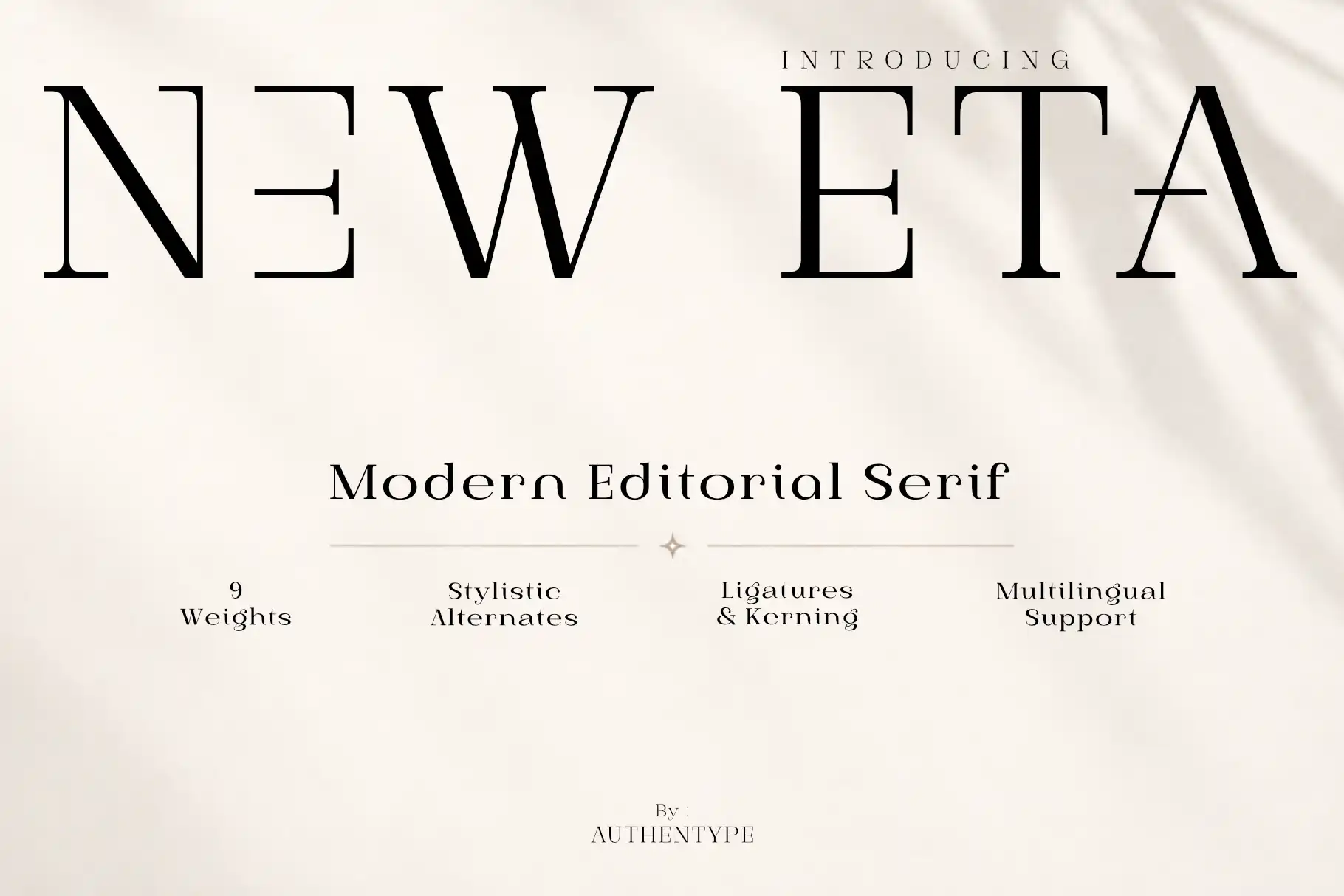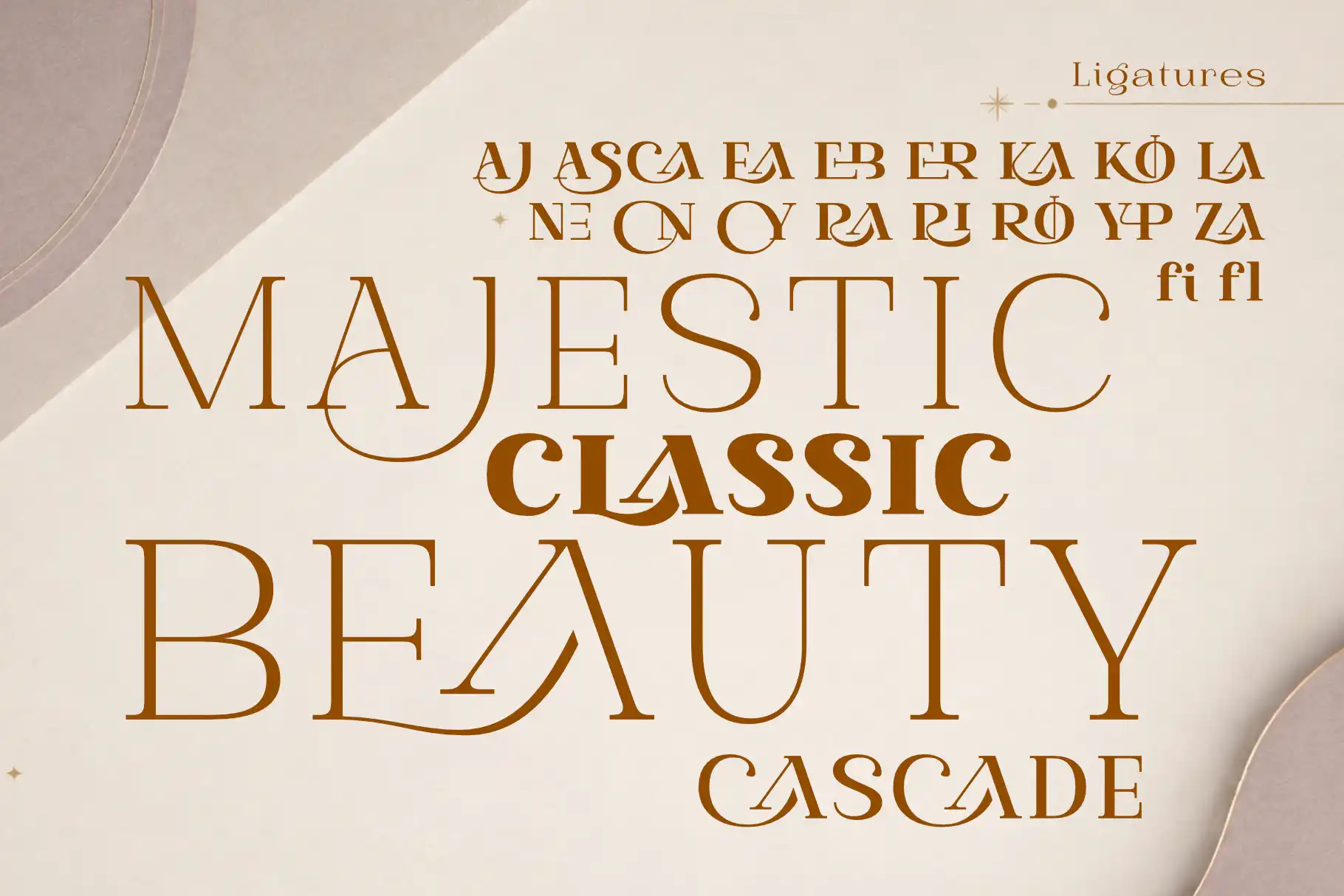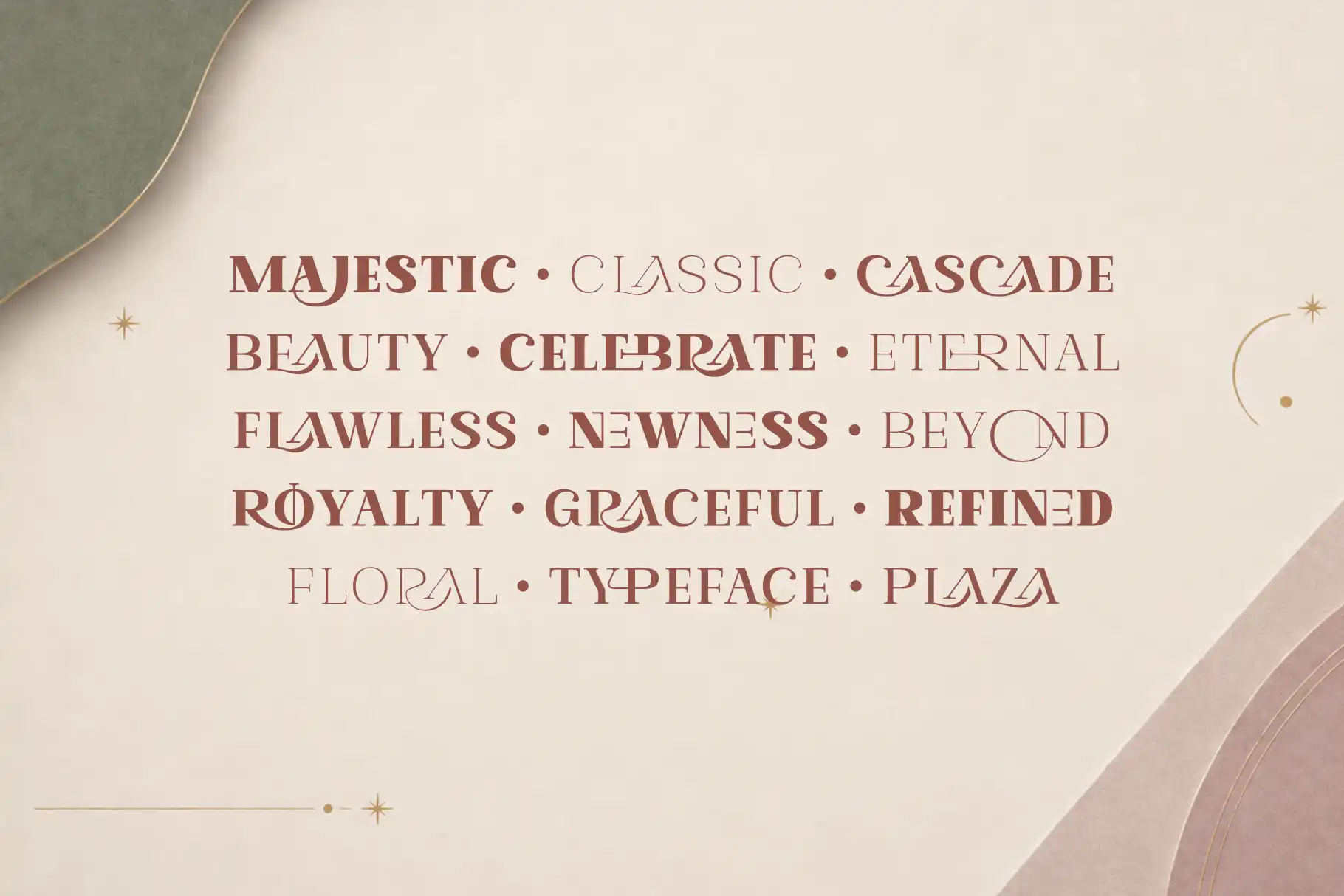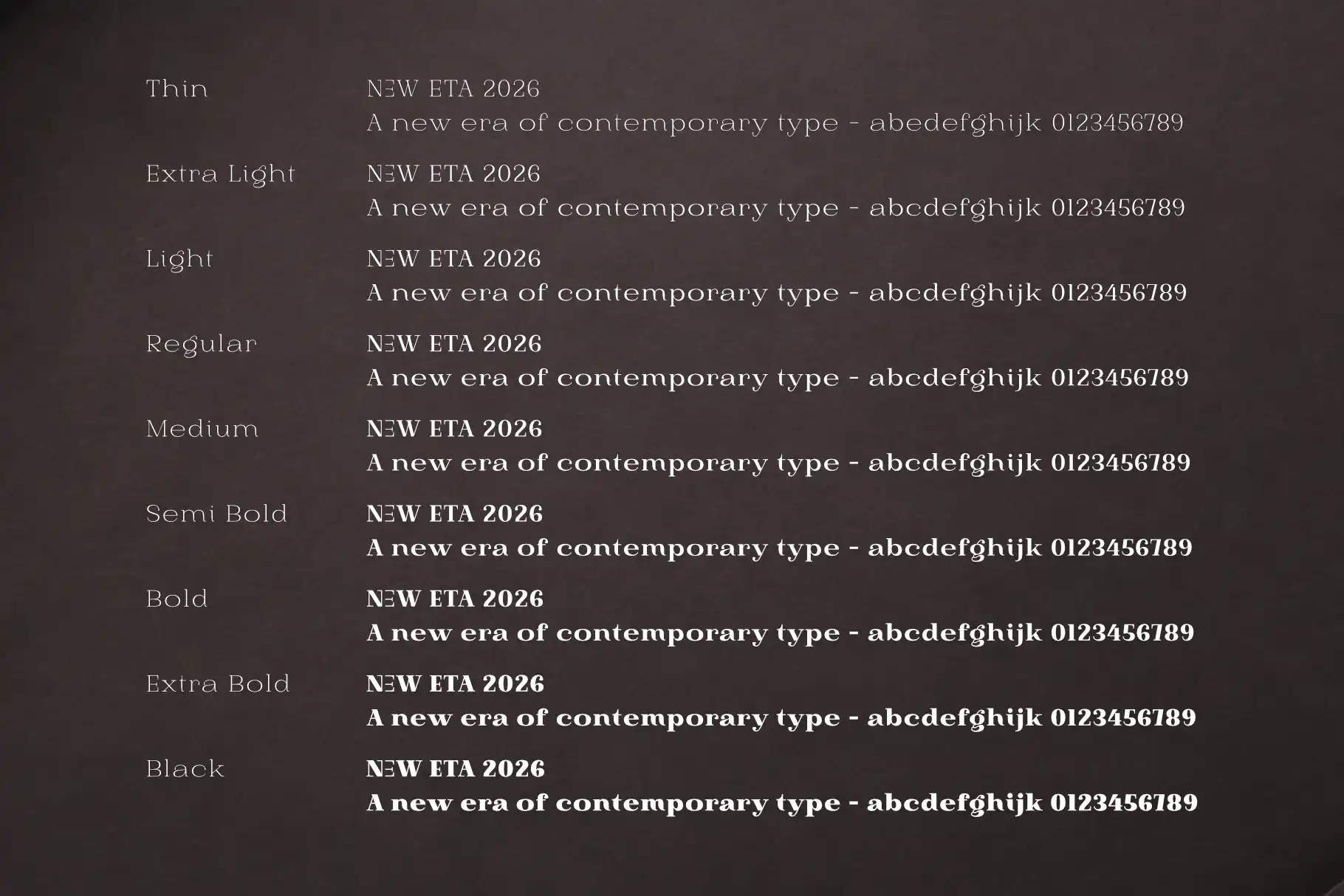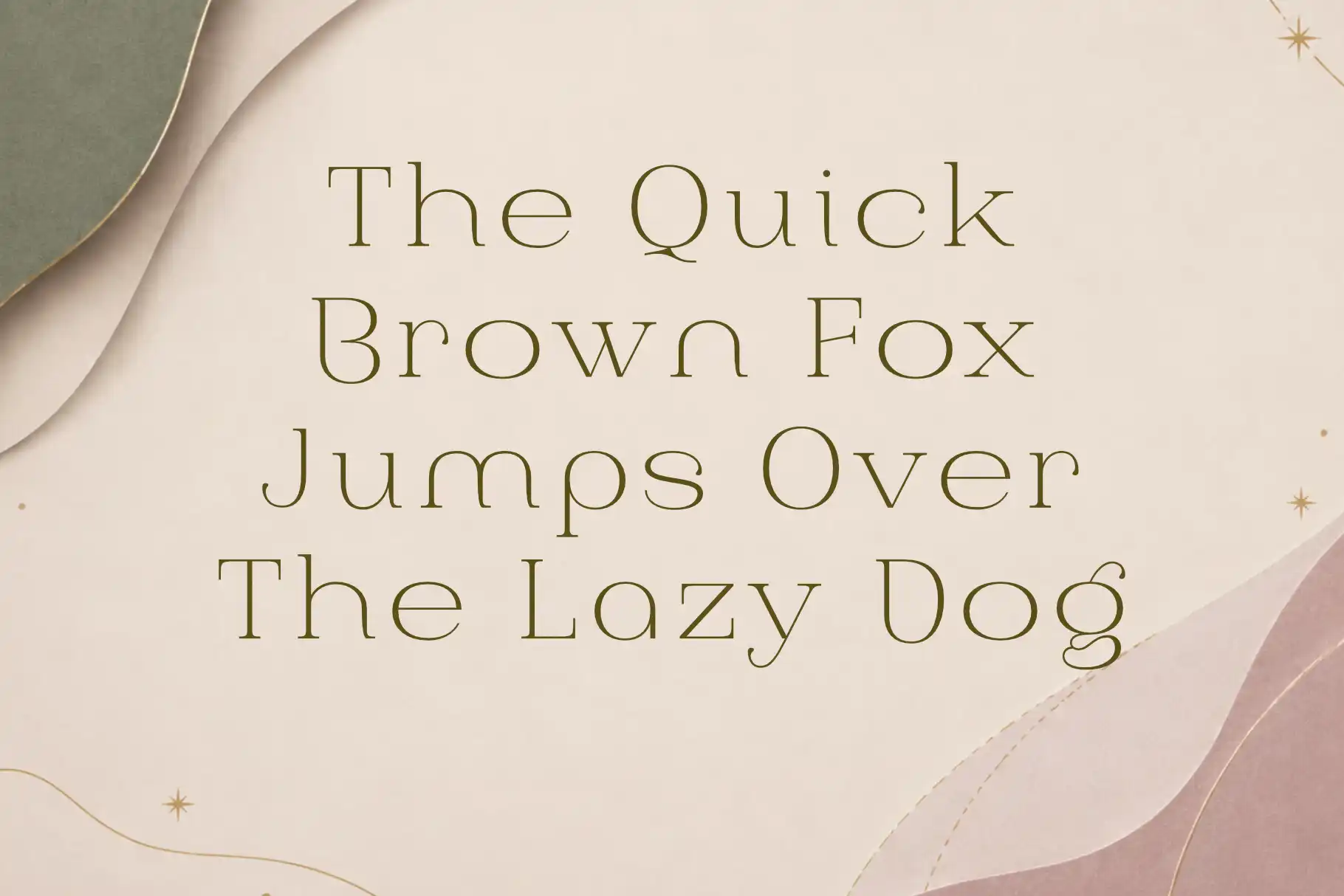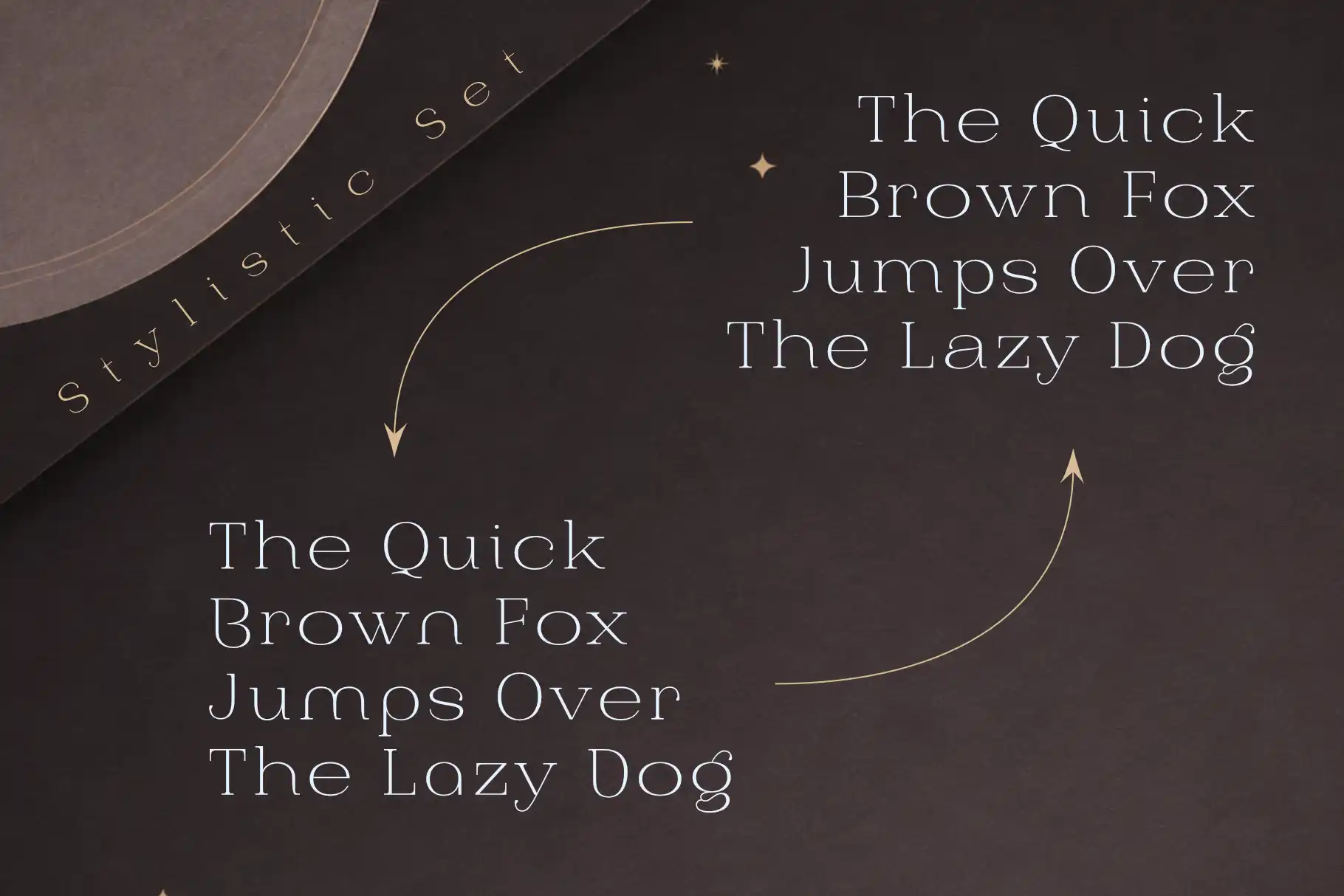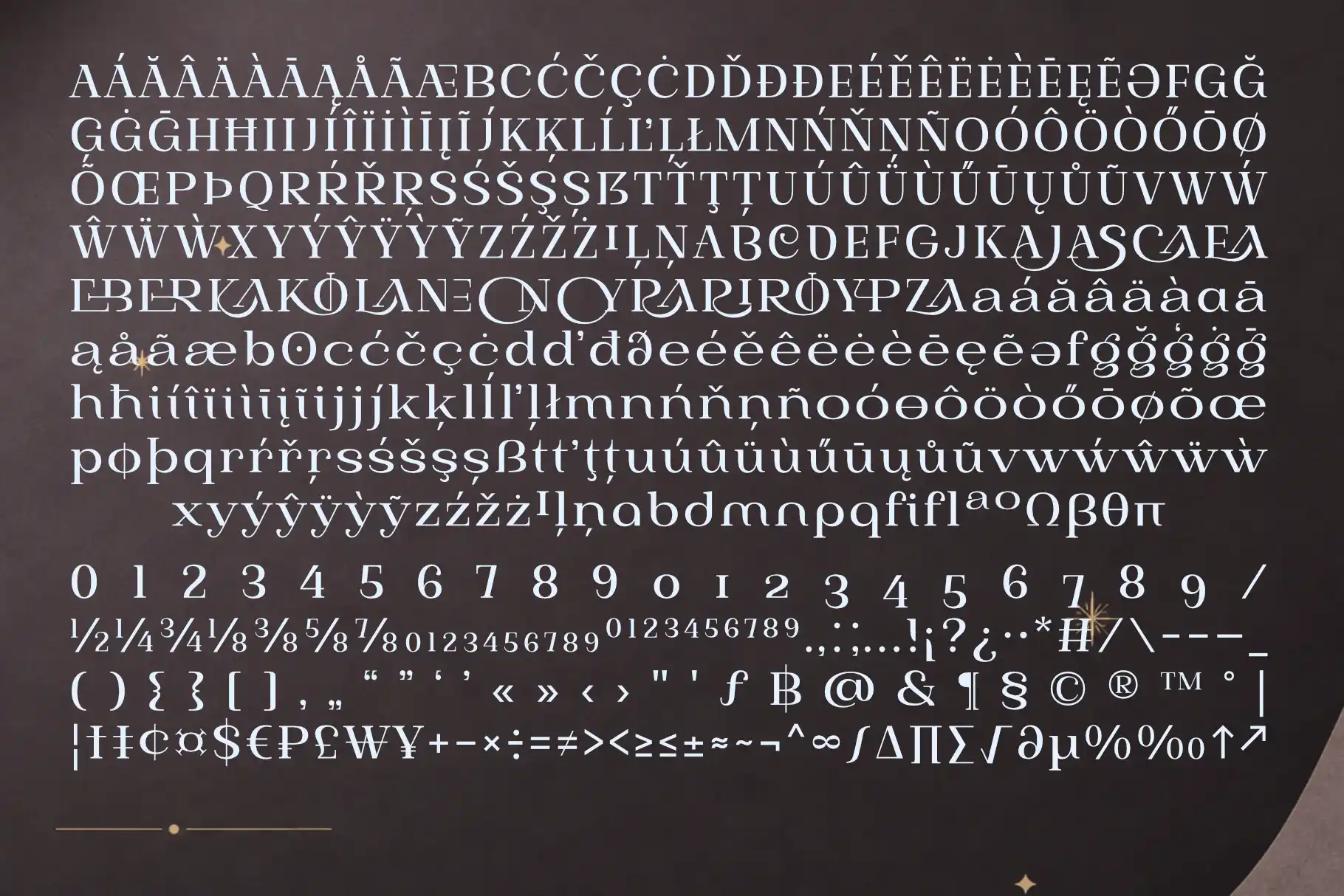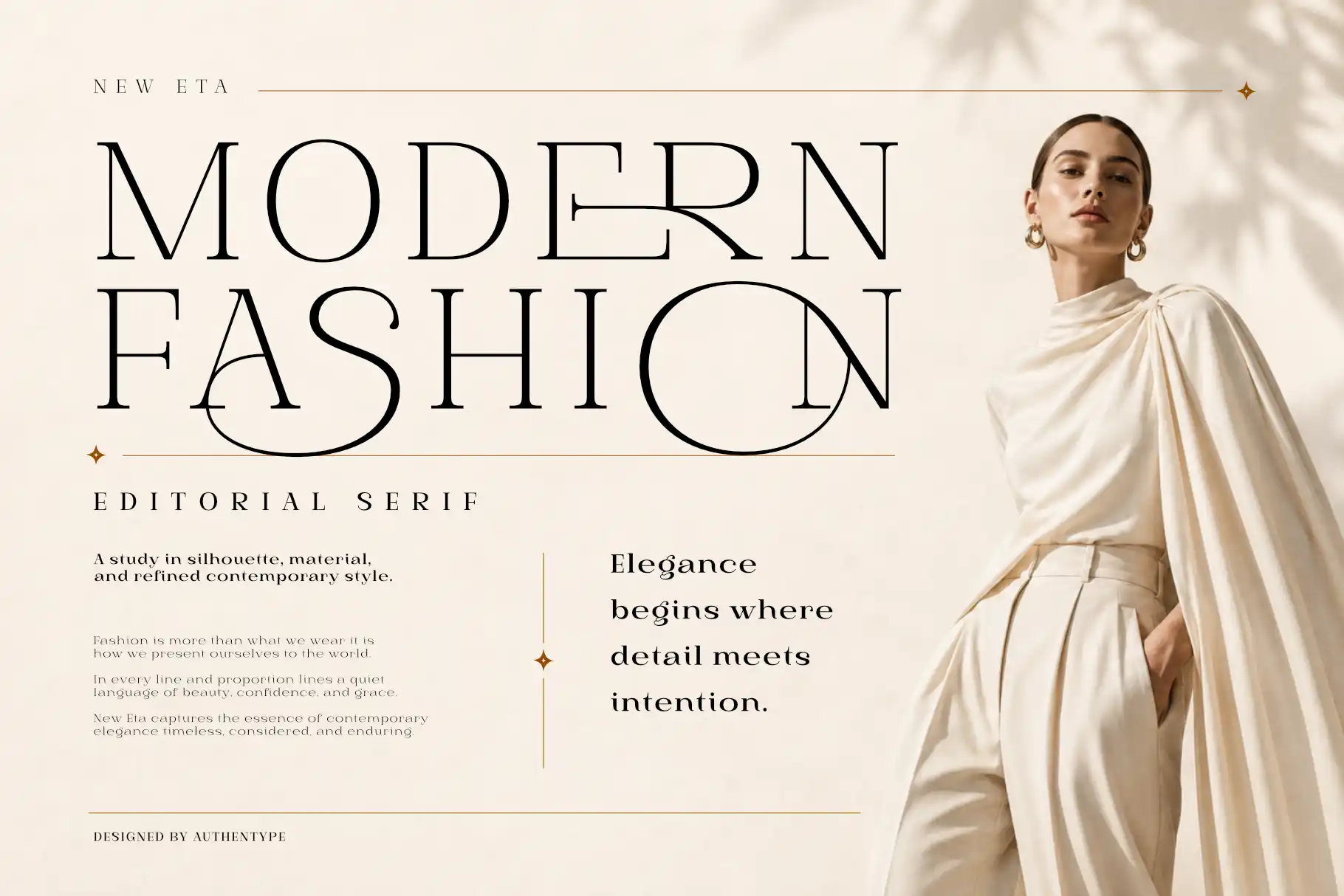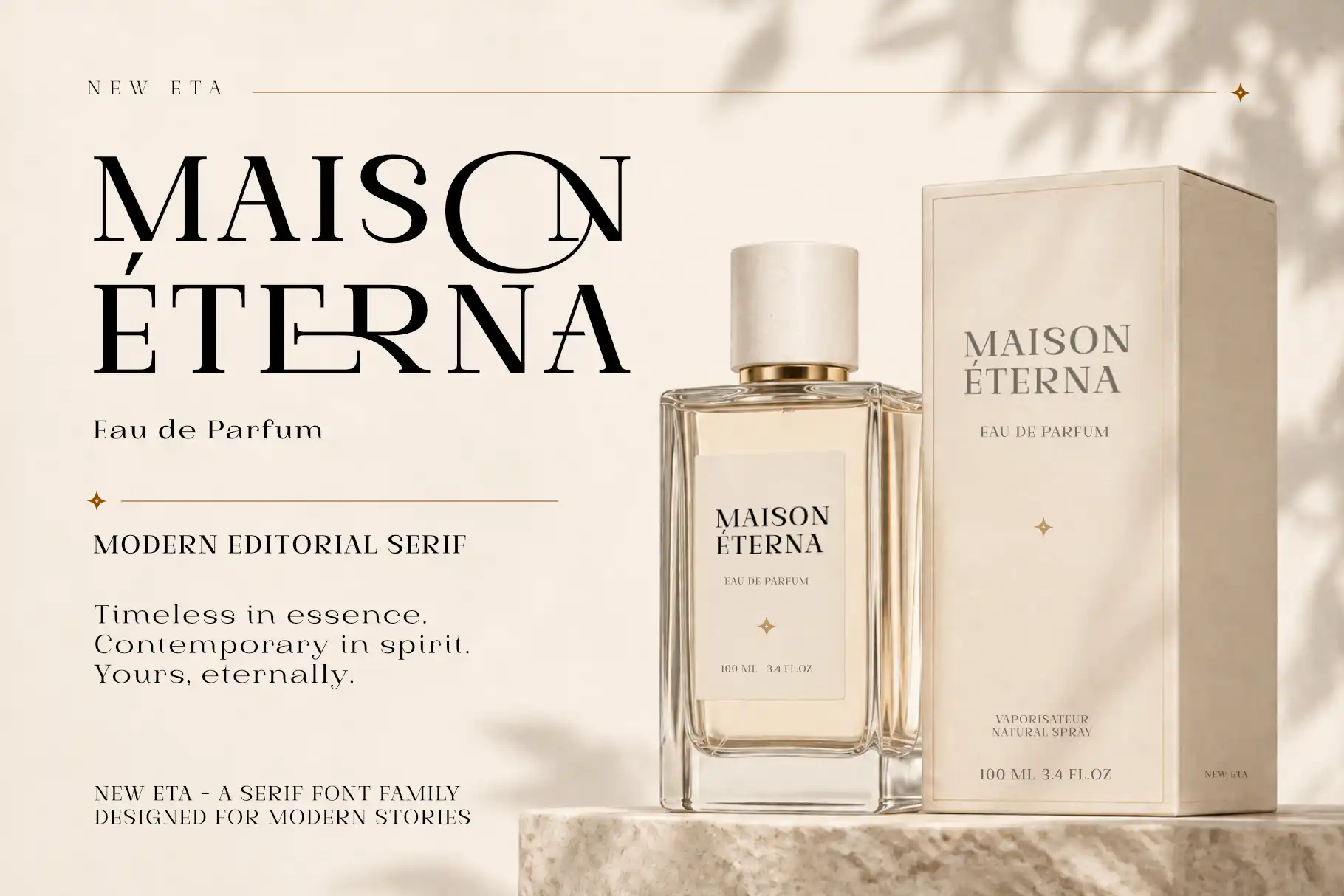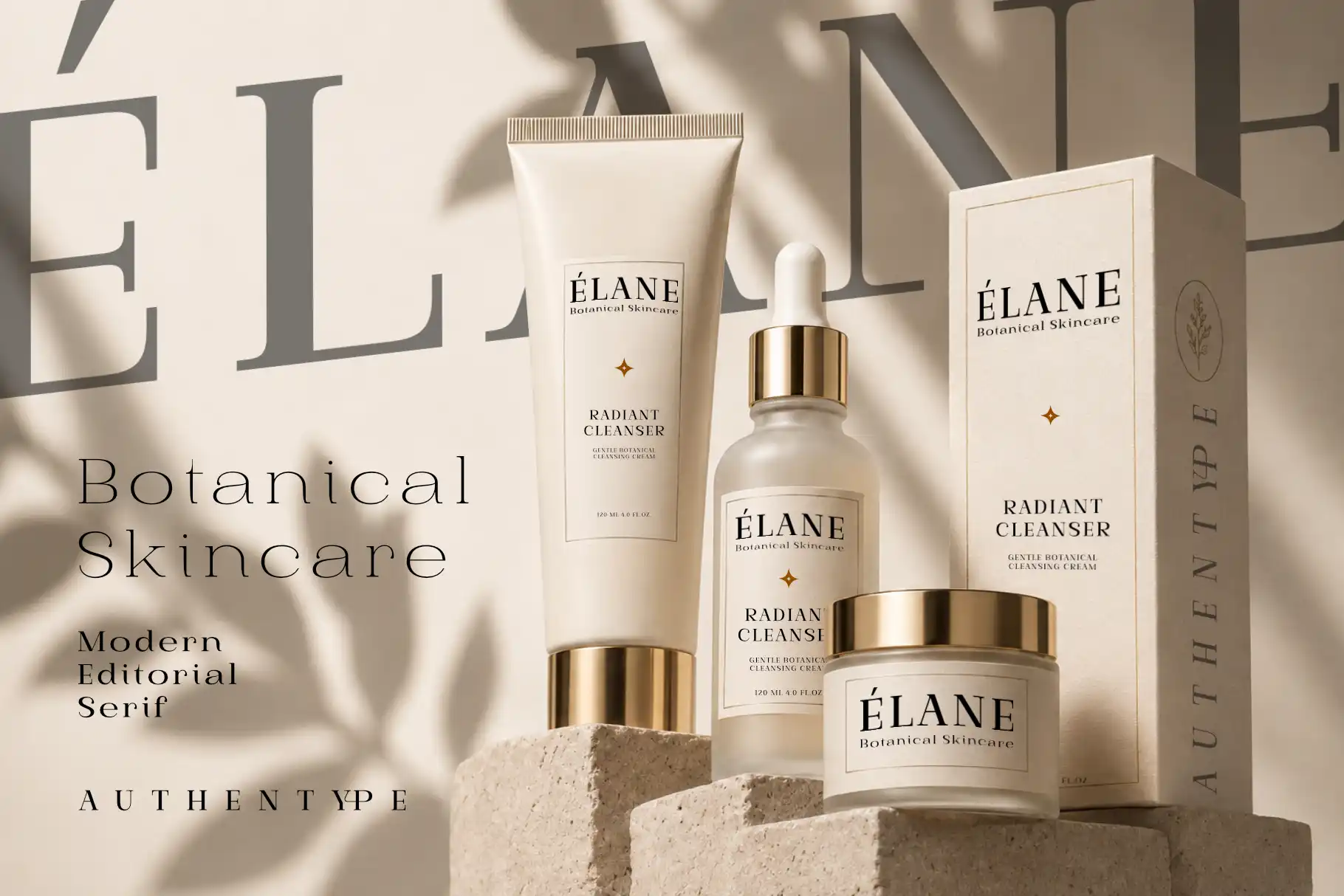
New Eta - Modern Editorial Serif Font Family
New Eta – Modern Editorial Serif Font Family Complete Family
New Eta Editorial Serif — 9 Weight Font Family
New Eta, a modern high-contrast serif family created for expressive editorial typography and sophisticated brand communication.
New Eta draws inspiration from classic fashion typography while introducing a more contemporary and sculptural personality. Elegant letter proportions are paired with dramatic stroke contrast, distinctive terminals, fluid curves, and carefully designed alternative characters.
The lighter weights deliver a delicate, graceful, and luxurious appearance. They work beautifully for fashion campaigns, perfume packaging, wedding stationery, editorial headlines, and beauty branding. As the family moves toward Bold, ExtraBold, and Black, New Eta becomes stronger and more confident while preserving its refined construction.
The family includes nine weights:
Thin, ExtraLight, Light, Regular, Medium, SemiBold, Bold, ExtraBold, and Black.
New Eta also includes stylistic alternates and discretionary ligatures that allow designers to create more expressive wordmarks, logos, titles, and monograms. Alternate forms for selected uppercase and lowercase characters introduce unexpected curves and decorative details without losing readability.
Use the standard characters for clean editorial compositions, or activate the stylistic features to build a more distinctive brand identity.
With extensive Latin language support, professional OpenType features, fractions, superscripts, subscripts, ligatures, and carefully developed kerning, New Eta is ready for both creative experimentation and professional design projects.